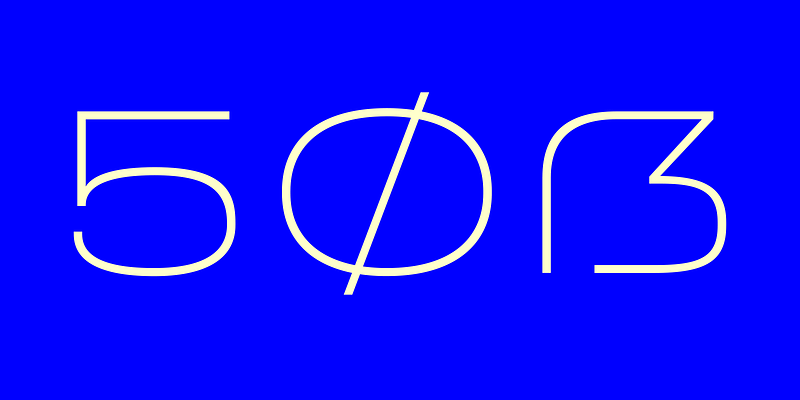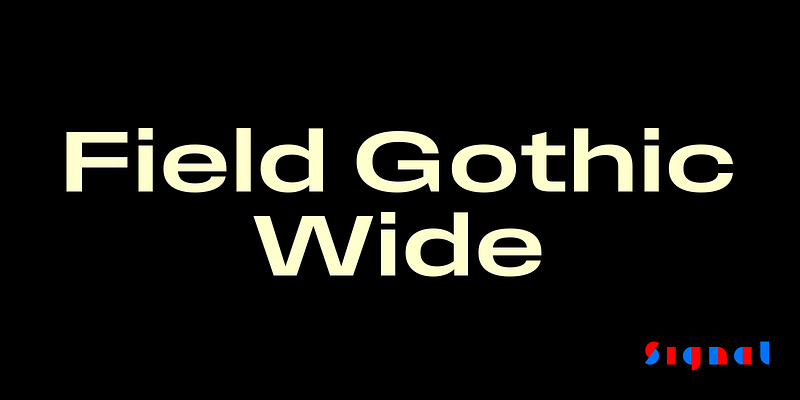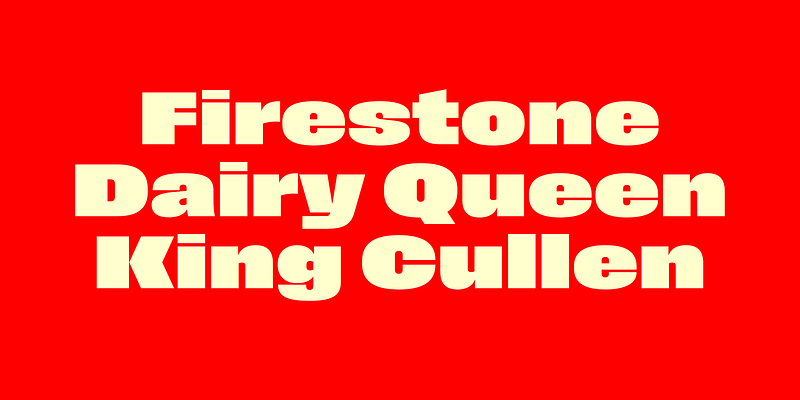
Field Gothic is a 64-style superfamily with eight widths and eight weights. The 16 Wide styles were made for big, brash statements. The look is crisp and coolish, with a robust x-height, slightly superelliptical curves, almost monoline light weights and, in the bolder styles, snug fit and sharply contrasting junctures. Also available: Field Narrow and Field Standard.